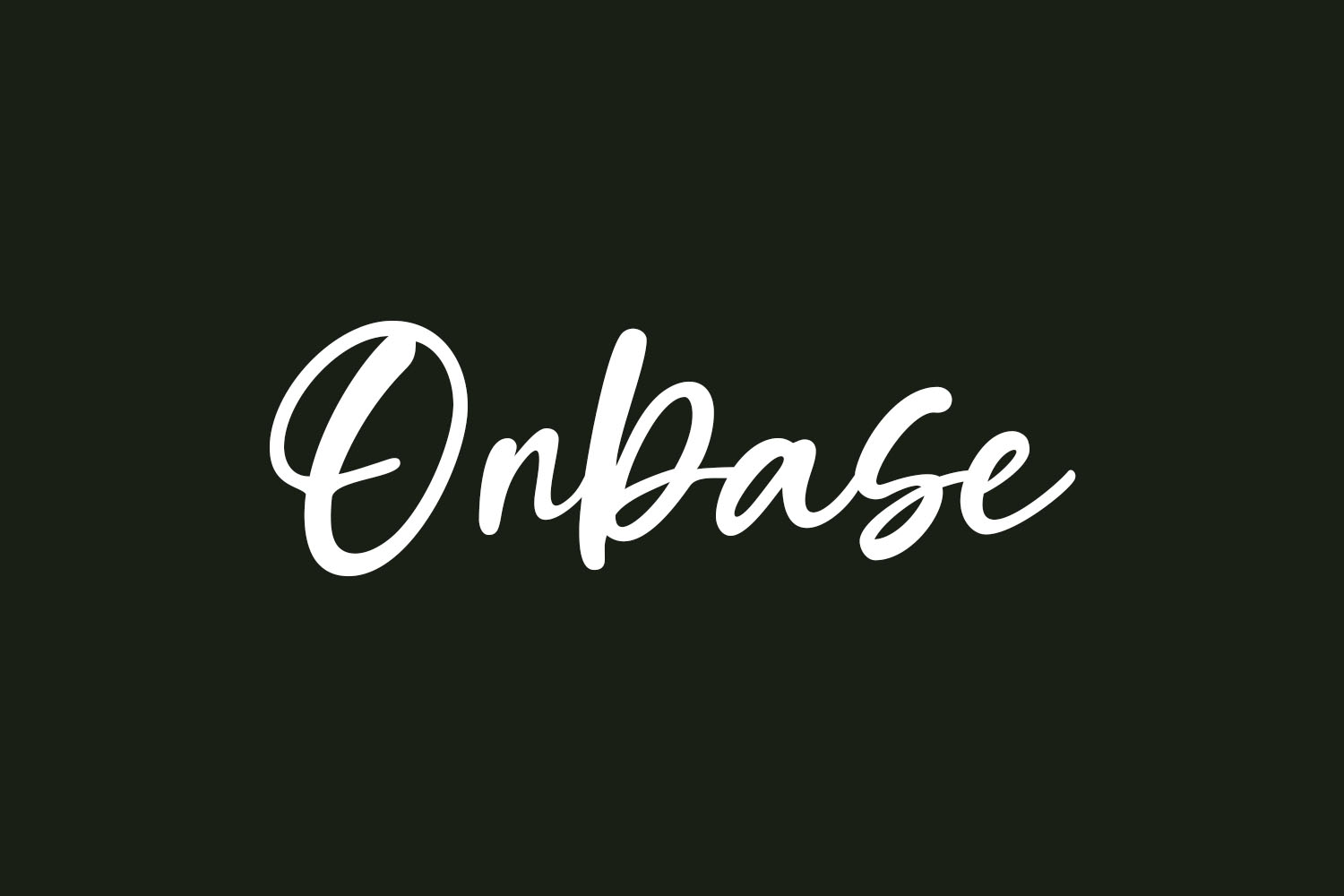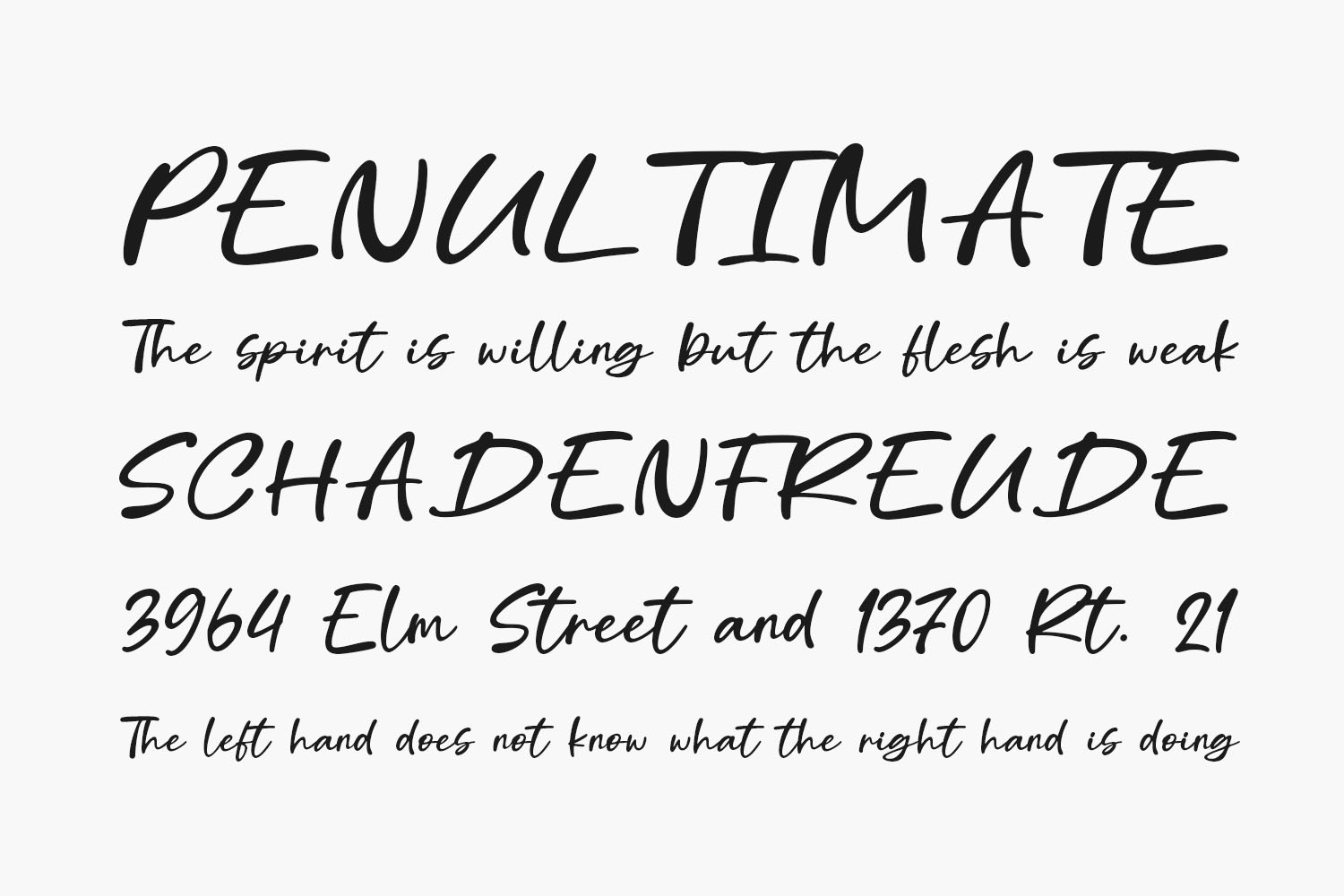
Discover Onbase Free Font, a sleek, contemporary script font exuding cleanliness and style. Ideal for a myriad of applications such as posters, logos, magazines, book covers, banners, and more, this elegant font elevates your designs. Unlock its versatility across a vast range of projects, infusing your creative ideas with a distinctive flair that makes them truly stand out. Acquire this amazing font today and witness its transformative impact on your creations. Onbase Free Font is free for personal use only. Please purchase the full version for commercial use.